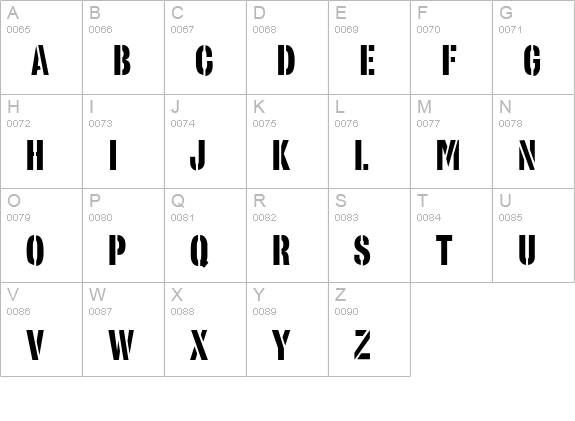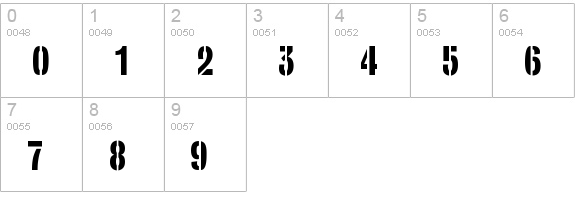
StencilSans Regular Font Details
StencilSans Regular is the standard, neutral variant in the StencilSans typeface family \xE2\x80\x94 well suited to general body text, paragraphs, and standard typographic work.
StencilSans Regular font is a modern and versatile typeface that combines the classic stencil design with a contemporary twist. Its clean lines and bold appearance make it perfect for a wide range of projects, from logos and branding to posters and packaging. This font features a balanced blend of sharp edges and rounded corners, giving it a unique and eye-catching look that stands out in any design. The Regular weight offers a perfect balance between readability and impact, making it ideal for both headers and body text. Whether you are working on a design project for print or digital media, StencilSans Regular font will add a touch of sophistication and style to your work. Best of all, this font is available for free download at FontsMarket.com, making it easily accessible for designers and creatives looking to elevate their projects with a touch of modernity.